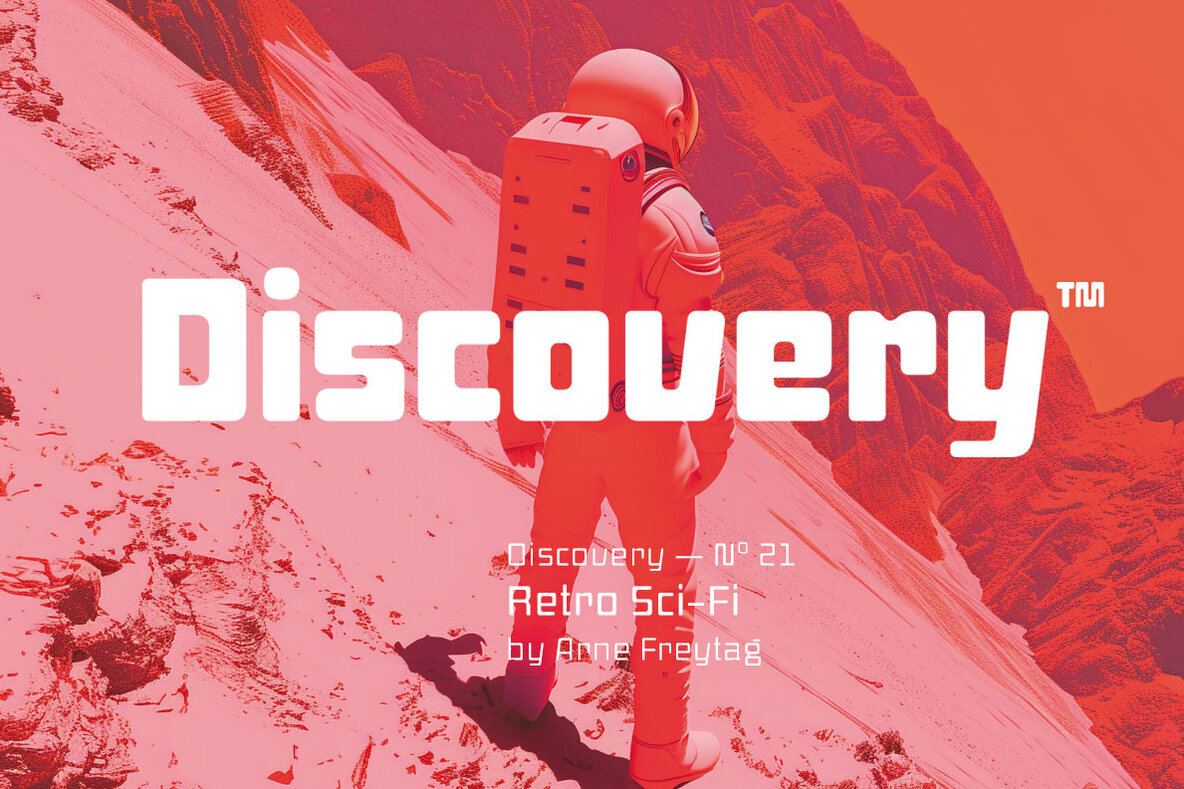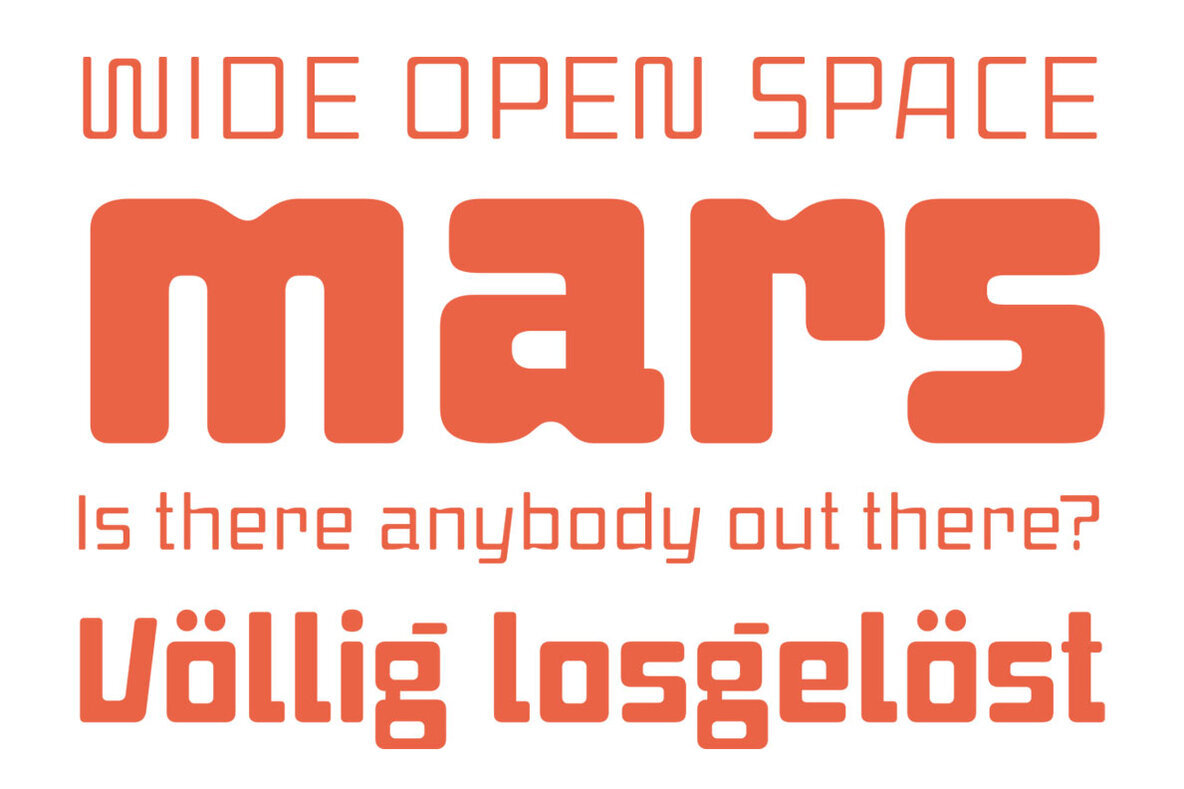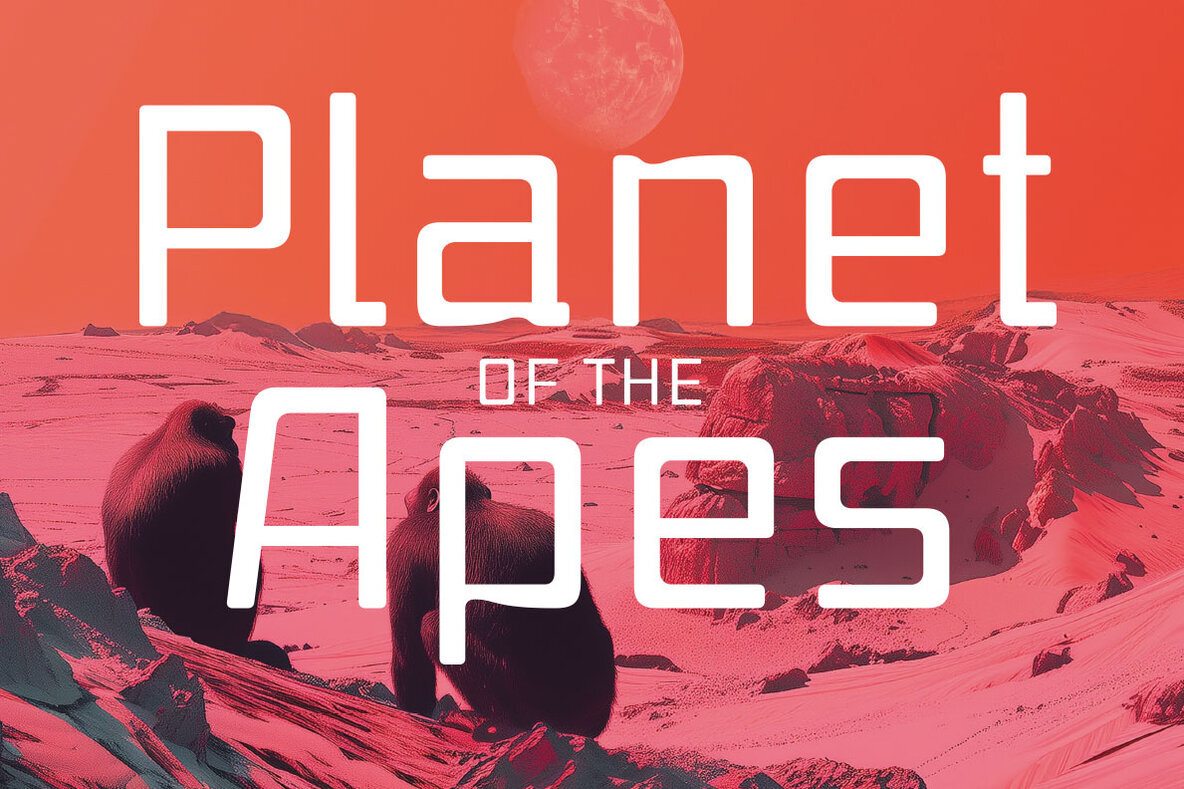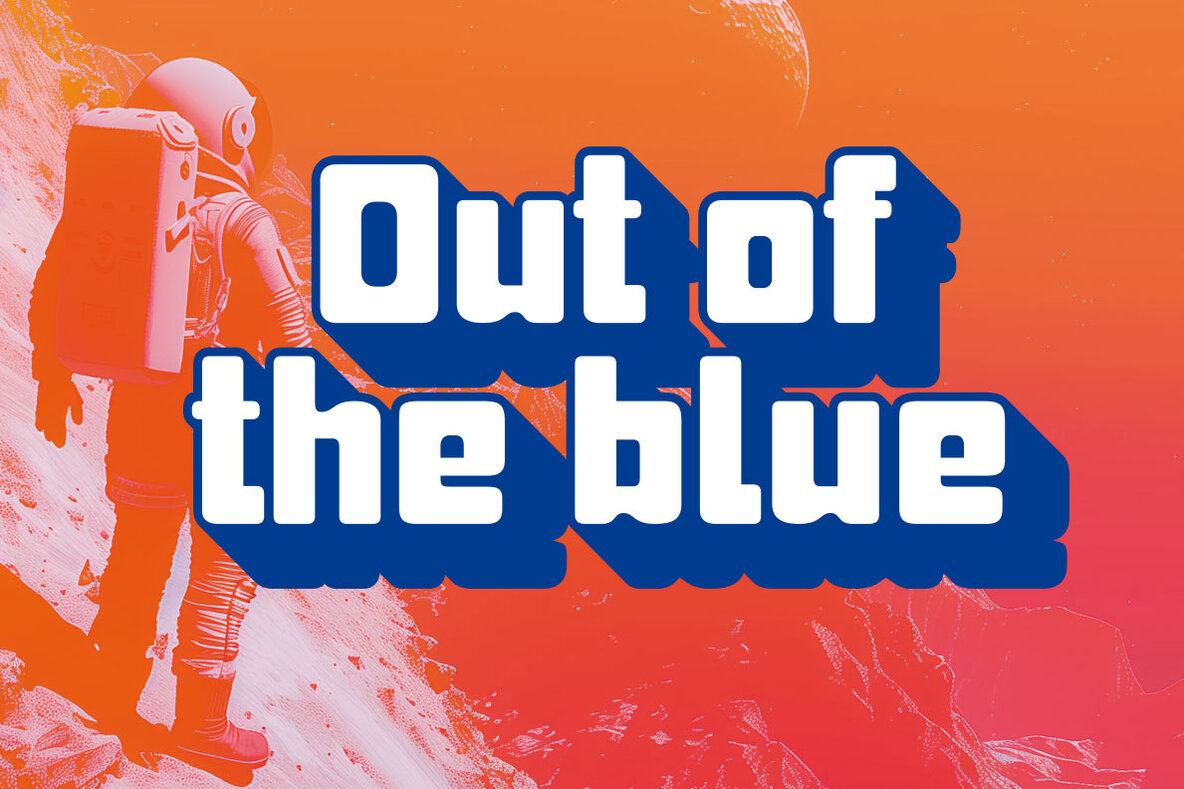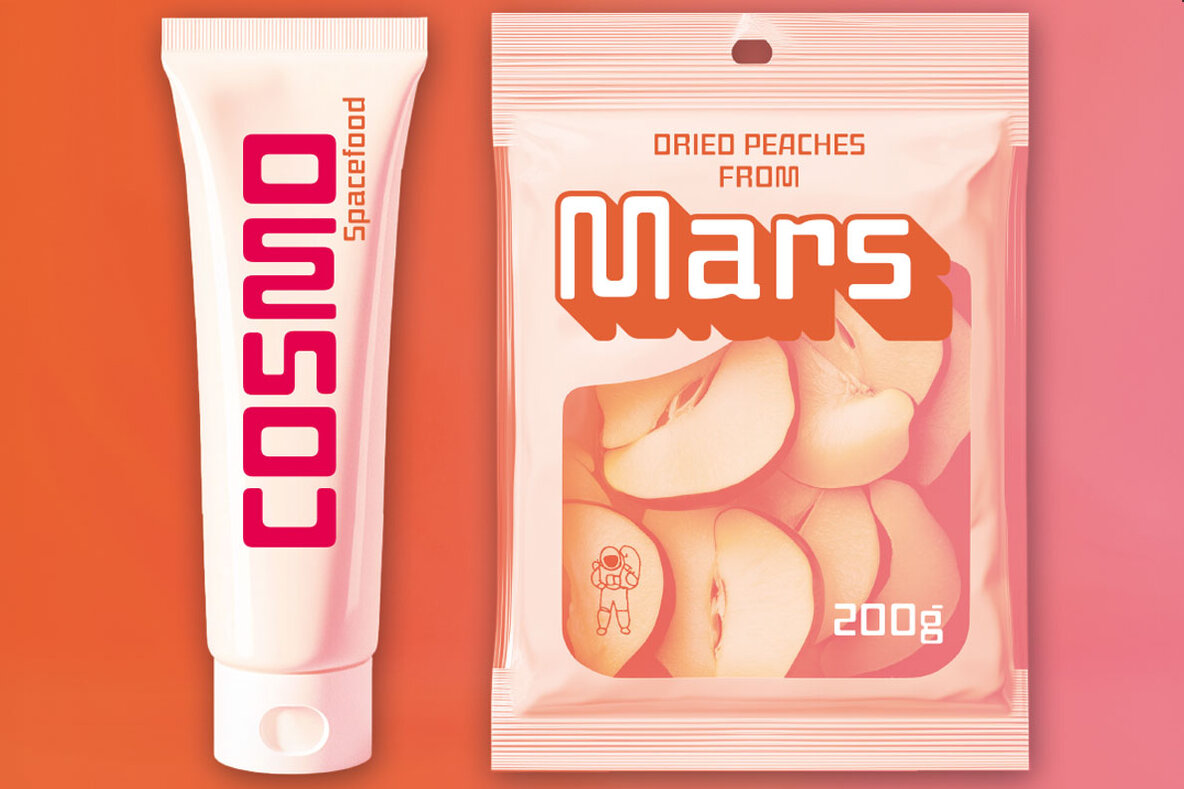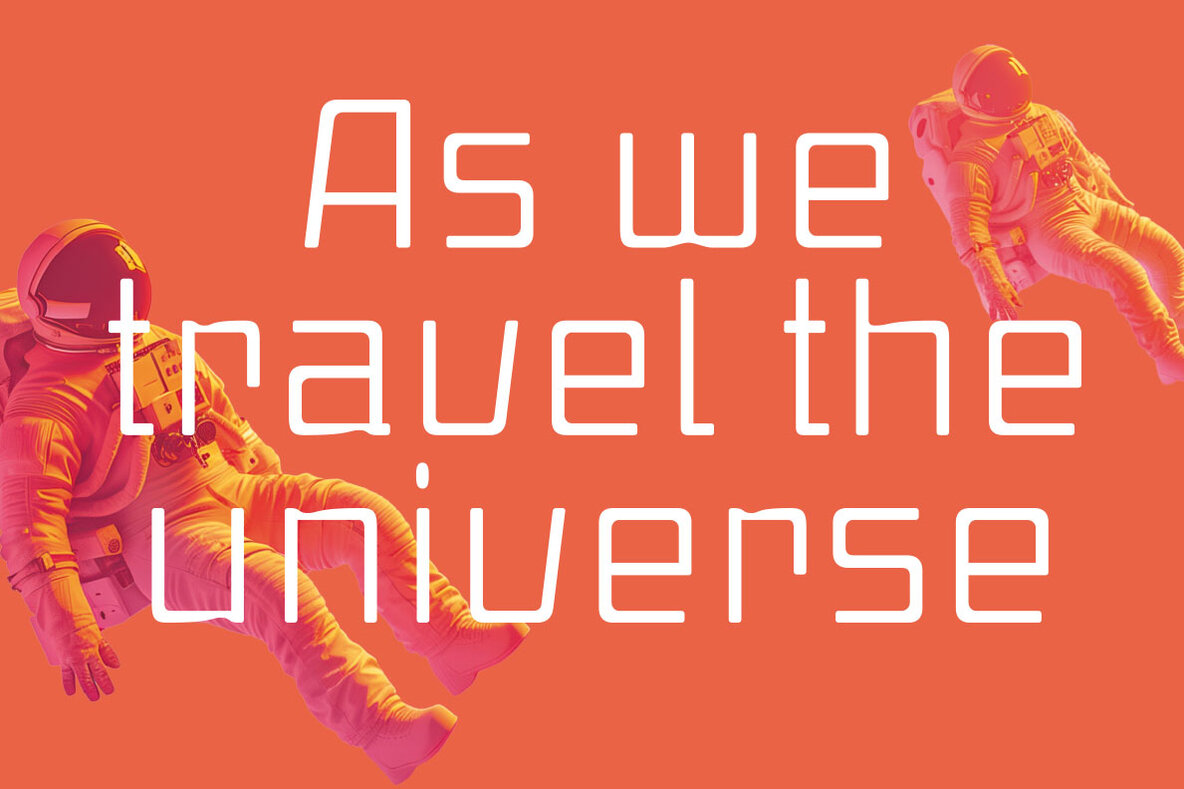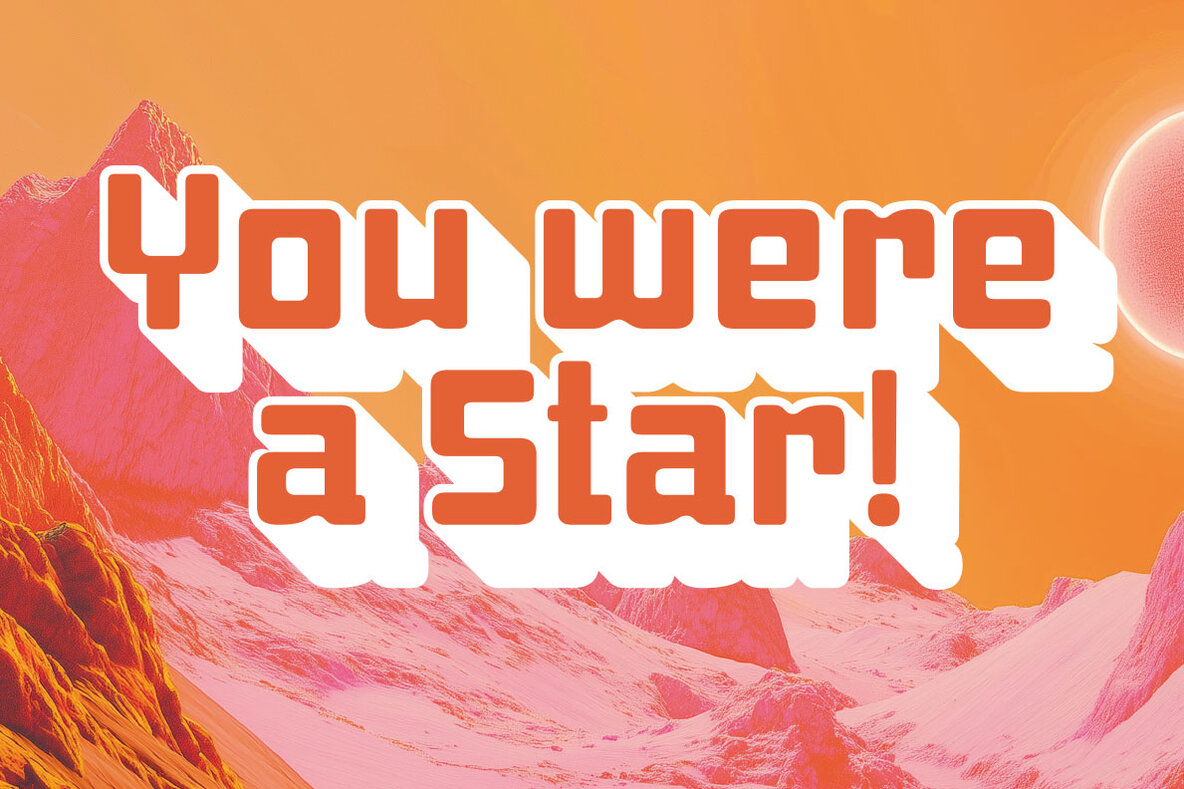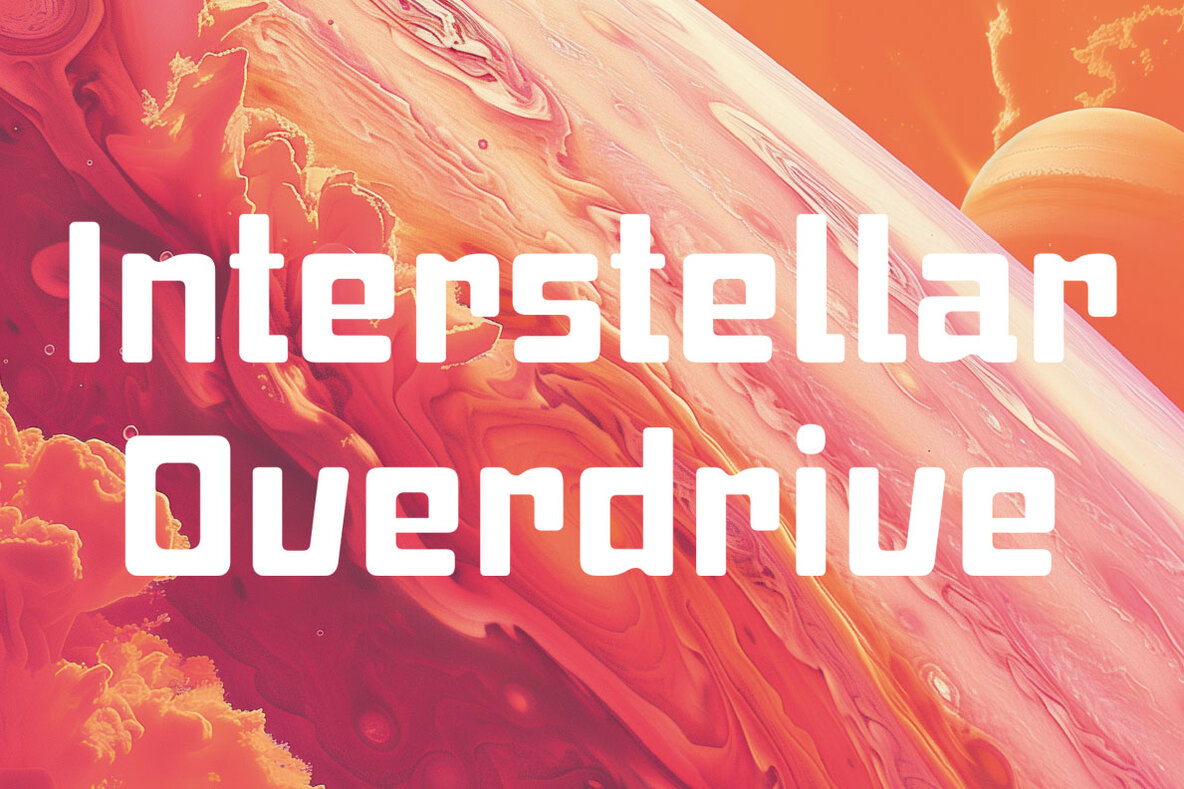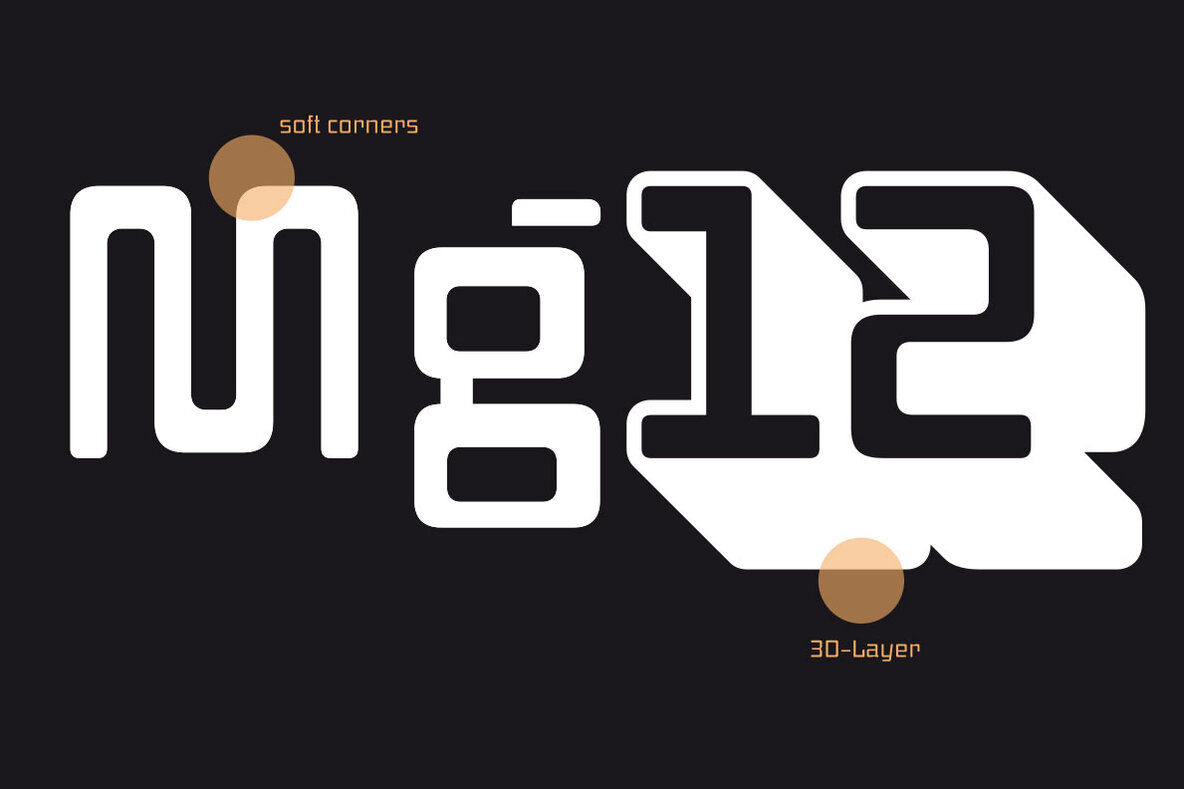
Discovery Font
Discovery draws inspiration from the iconic sci-fi fonts that adorned film titles and record covers of the past century. This unique typeface showcases a blend of retro aesthetics and contemporary design across five expertly designed weights, complete with matching 3D layers. It brings versatility and character to a multitude of creative projects. Features: Discovery is ideal for expressive logotypes, concise headlines, striking posters, distinctive branding, and innovative food design applications. Its blend of nostalgic charm with modern aspirations makes it a valuable asset in any designer's toolkit.Discovery: A Futuristic Retro Font with 3D Flair